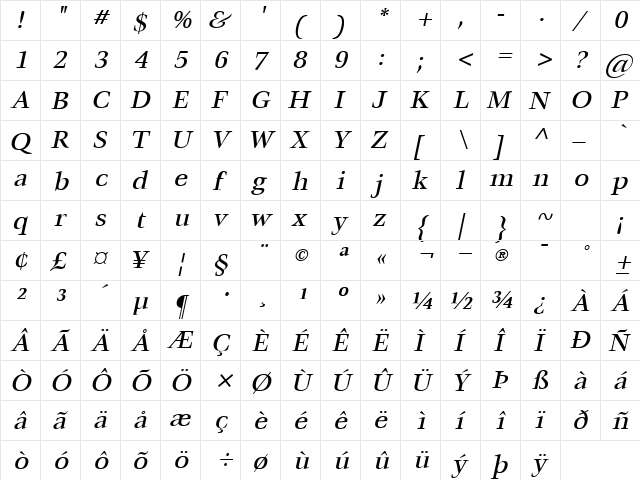
Mature Italic
Design Context for Mature Typeface
Mature offers clean, dependable letterforms without strong stylistic allegiance, making it a practical choice for designers who need flexibility. The slanted form adds forward momentum and visual energy.
Pro Tip: Try Mature for annotation and caption copy alongside an upright companion — the contrast in angle creates a dynamic but ordered typographic system.